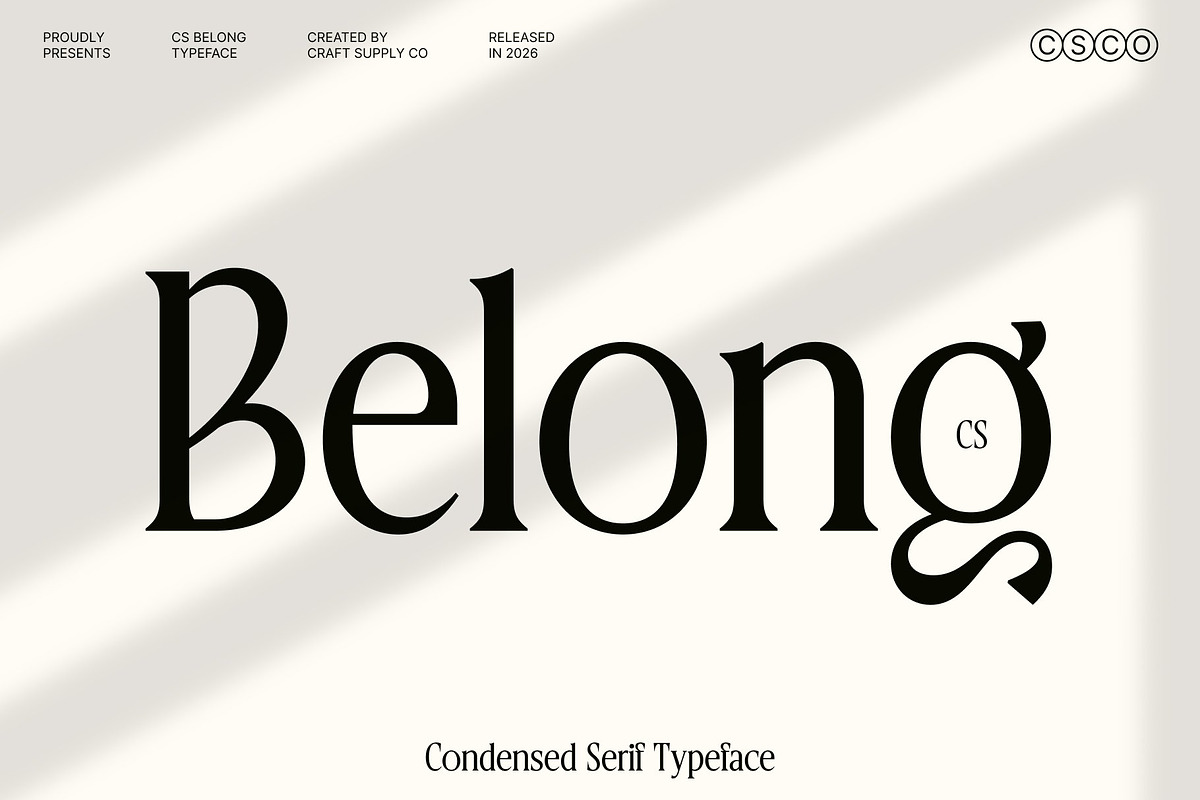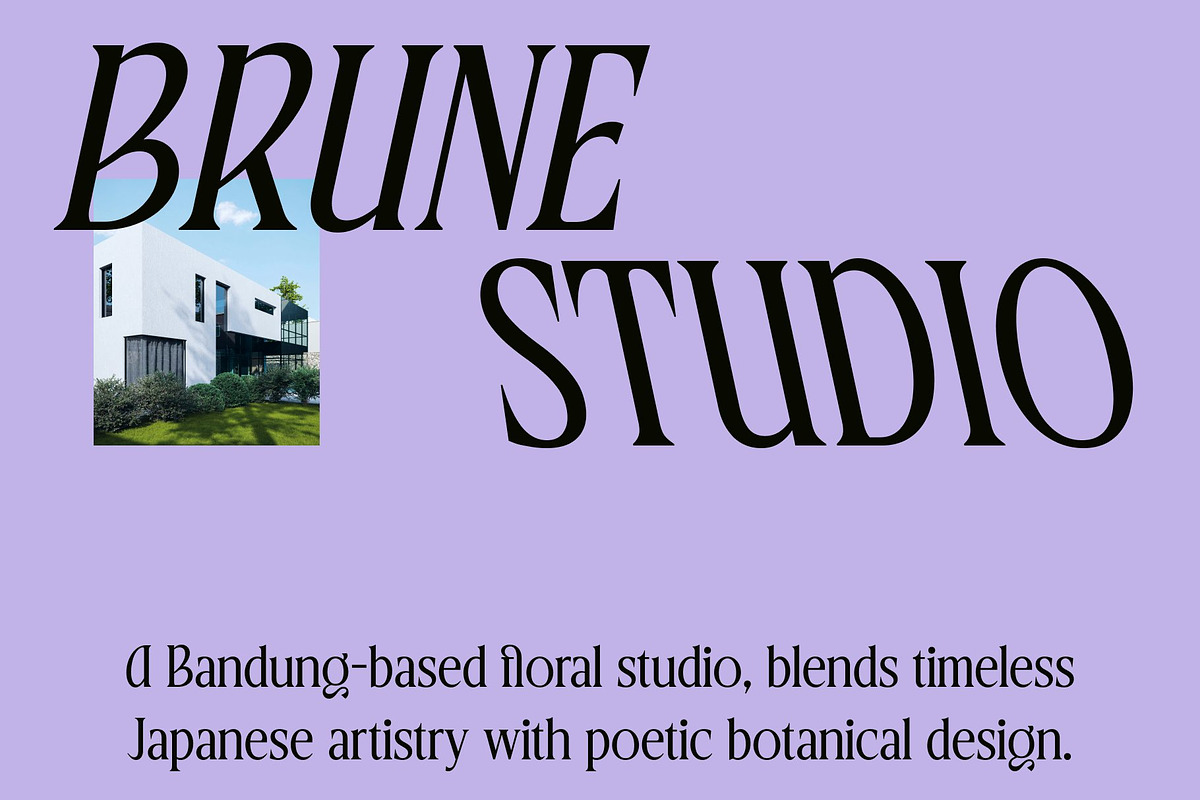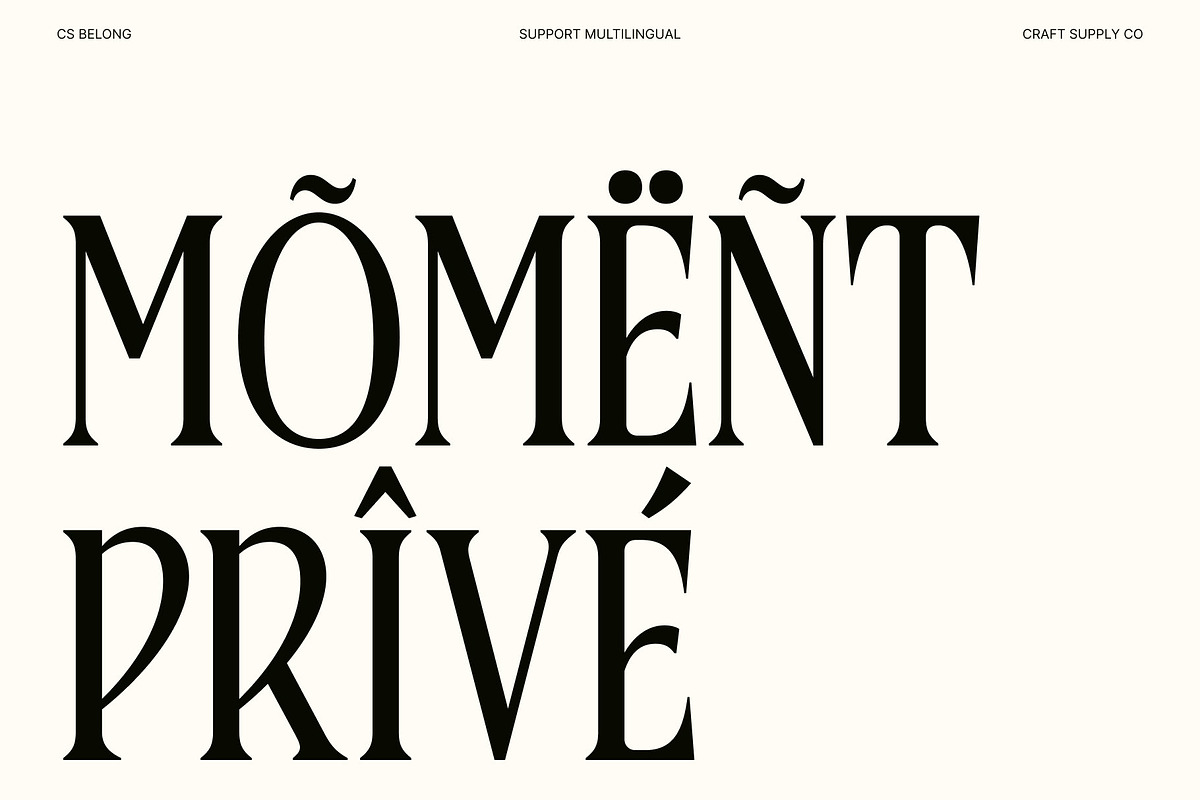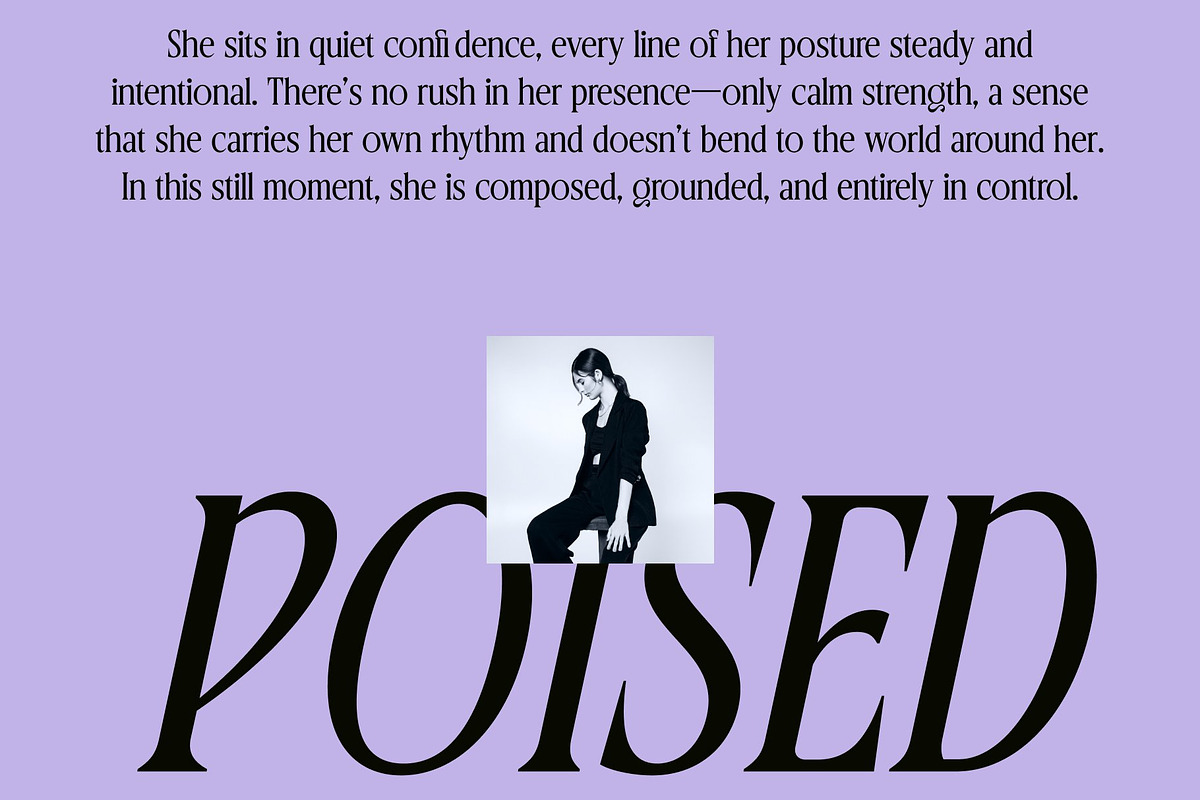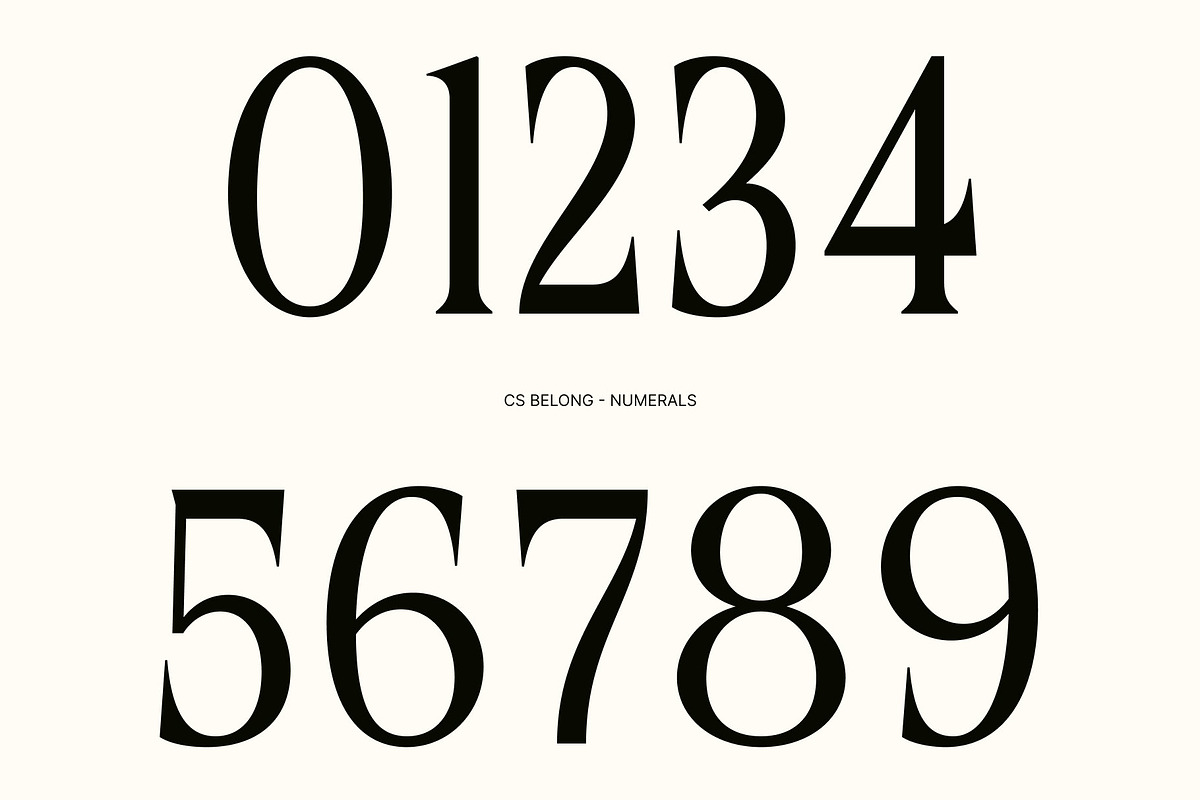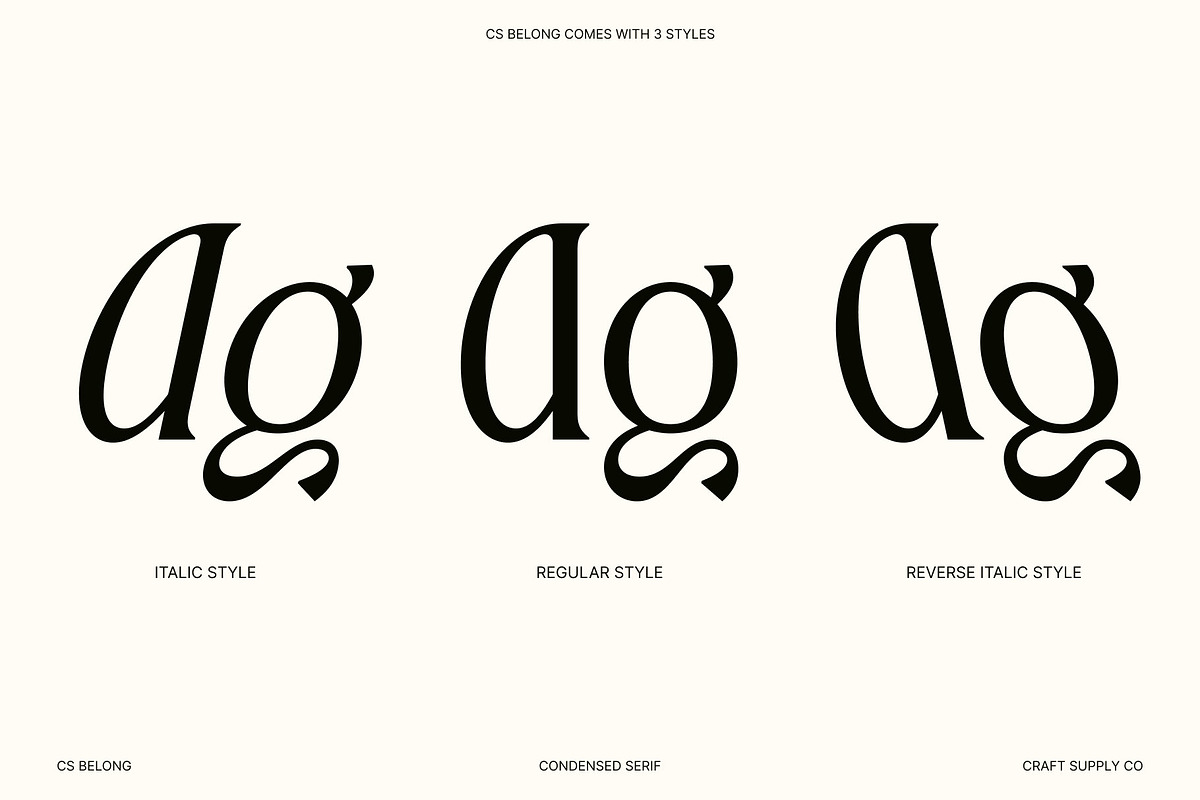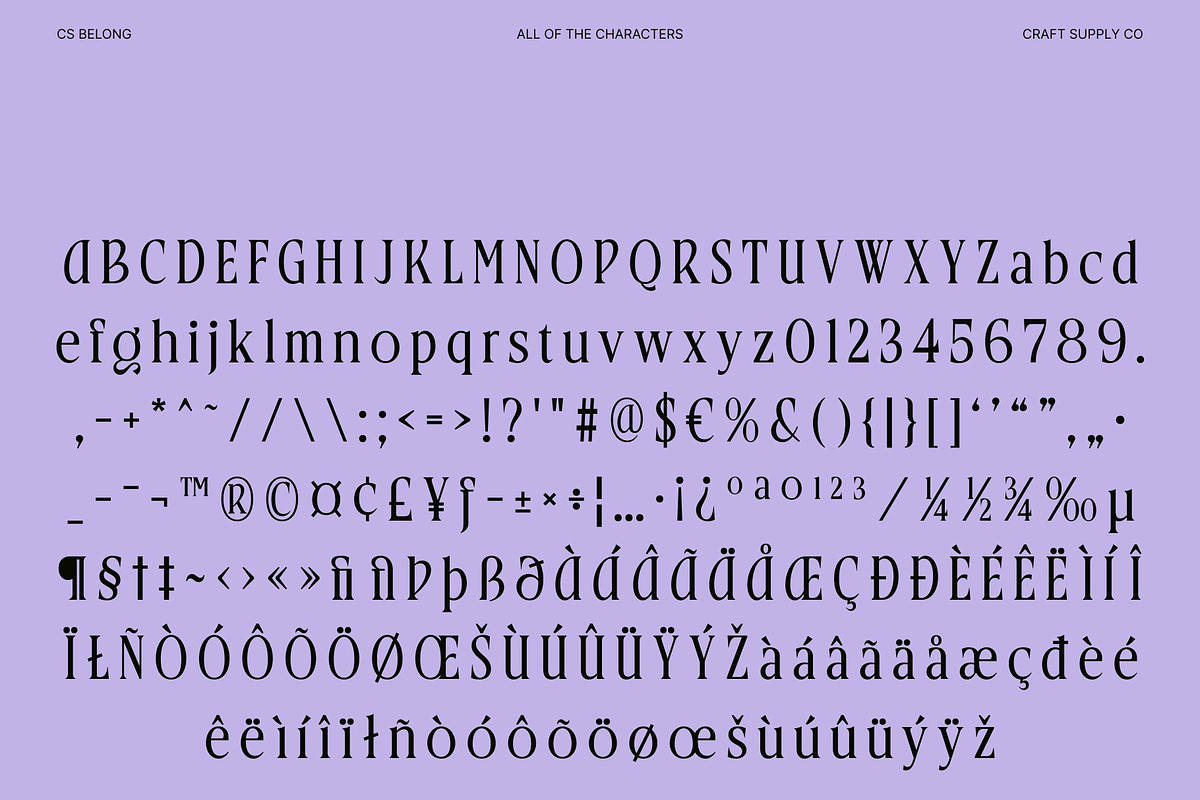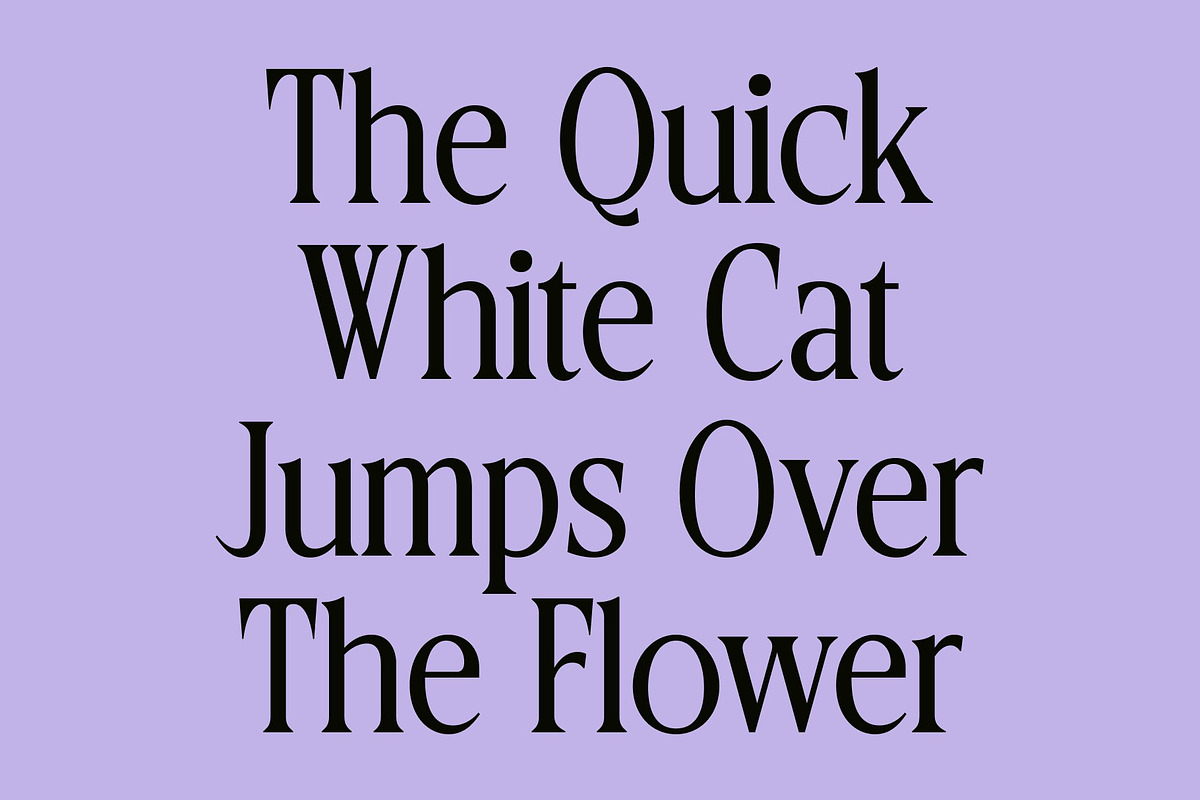
CS Belong – Contemporary Font
CS Belong – Contemporary Elegance with Luxurious Refinement
Elegant Serif Font with High-End Contemporary Style This is an elegant serif font crafted to deliver a refined and luxurious visual presence. Defined by graceful curves, elongated details, and sleek contemporary lines, this typeface presents a high-end aesthetic that feels modern, polished, and confident. Its sophisticated construction blends timeless serif elegance with a fresh, contemporary sensibility, making a powerful choice for premium design projects.
Elongated Forms with Refined Curves The distinctive character of lies in its elongated letterforms and carefully sculpted curves. These details create a sense of flow and visual elegance, adding height and sophistication to every word. The sleek lines enhance readability while reinforcing a modern, upscale impression, allowing the font to feel light, graceful, and visually balanced across display and editorial use.
Modern Luxury with Sleek Precision This font embodies contemporary luxury through its clean structure and subtle stylistic refinement. Its elegant serifs and smooth transitions give the font a confident yet understated presence, perfect for designs that communicate exclusivity and taste. This balance between modern clarity and classic elegance makes adaptable to a wide range of refined visual styles.
Ideal for Luxury Design, Editorials, and Branding Designed for premium applications, this font is ideal for luxury branding, editorial layouts, fashion publications, packaging, and high-end marketing materials. Its elegant serif form elevates headlines, body text, and logos with sophistication and clarity.
- CS Belong Regular
- CS Belong Italic
- CS Belong Reverse Italic